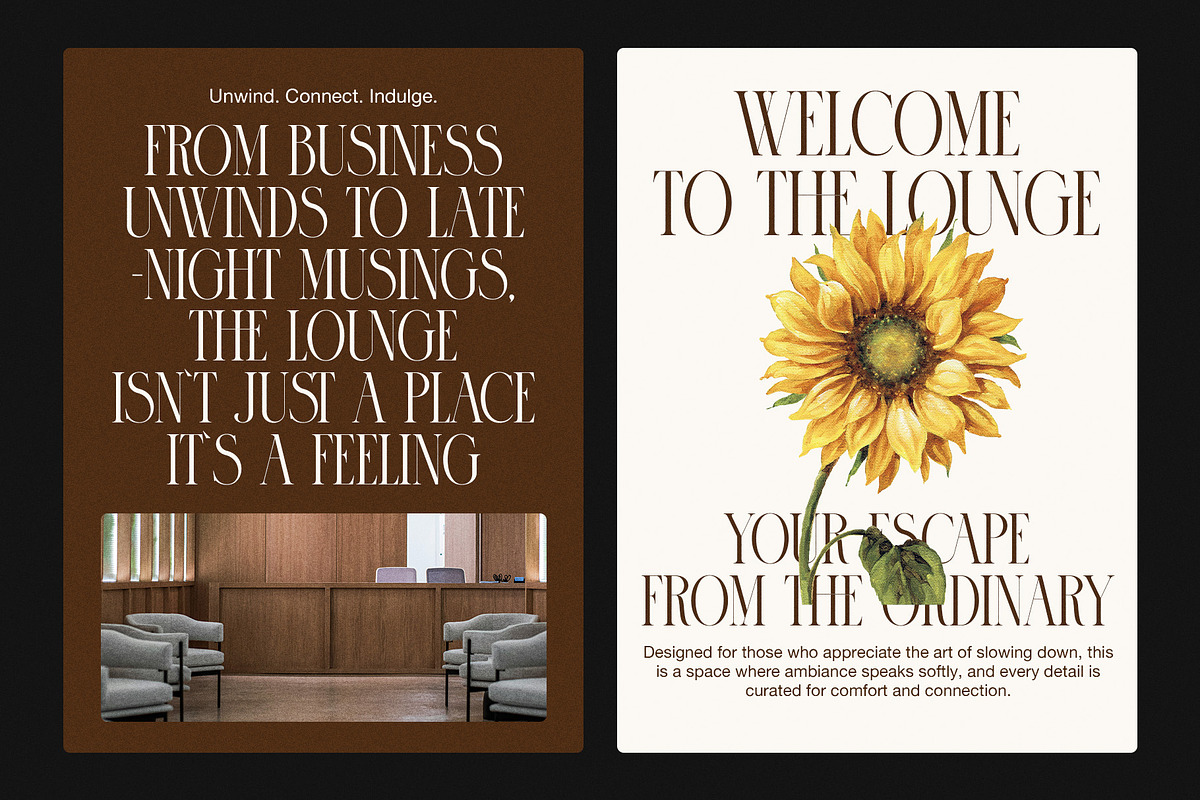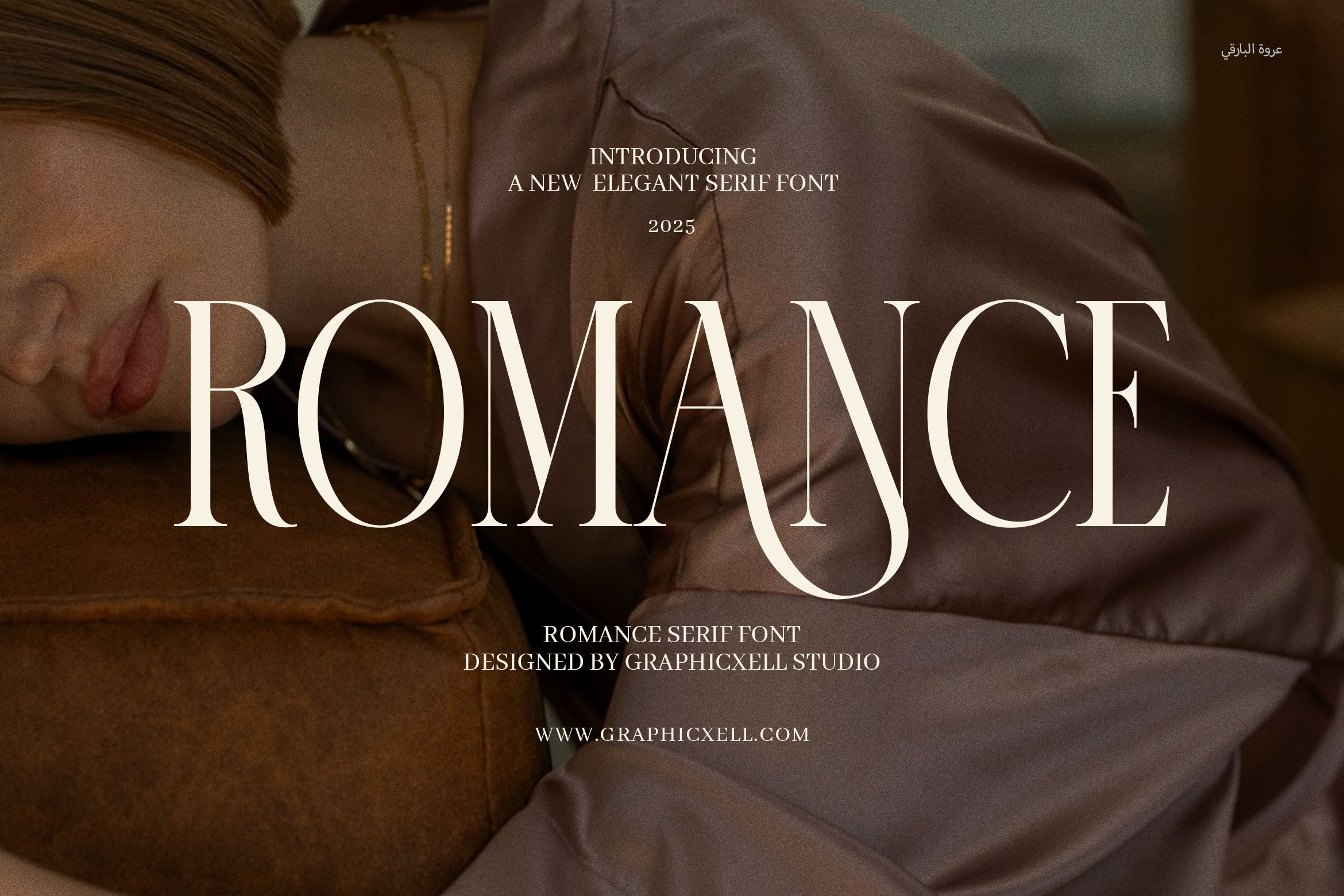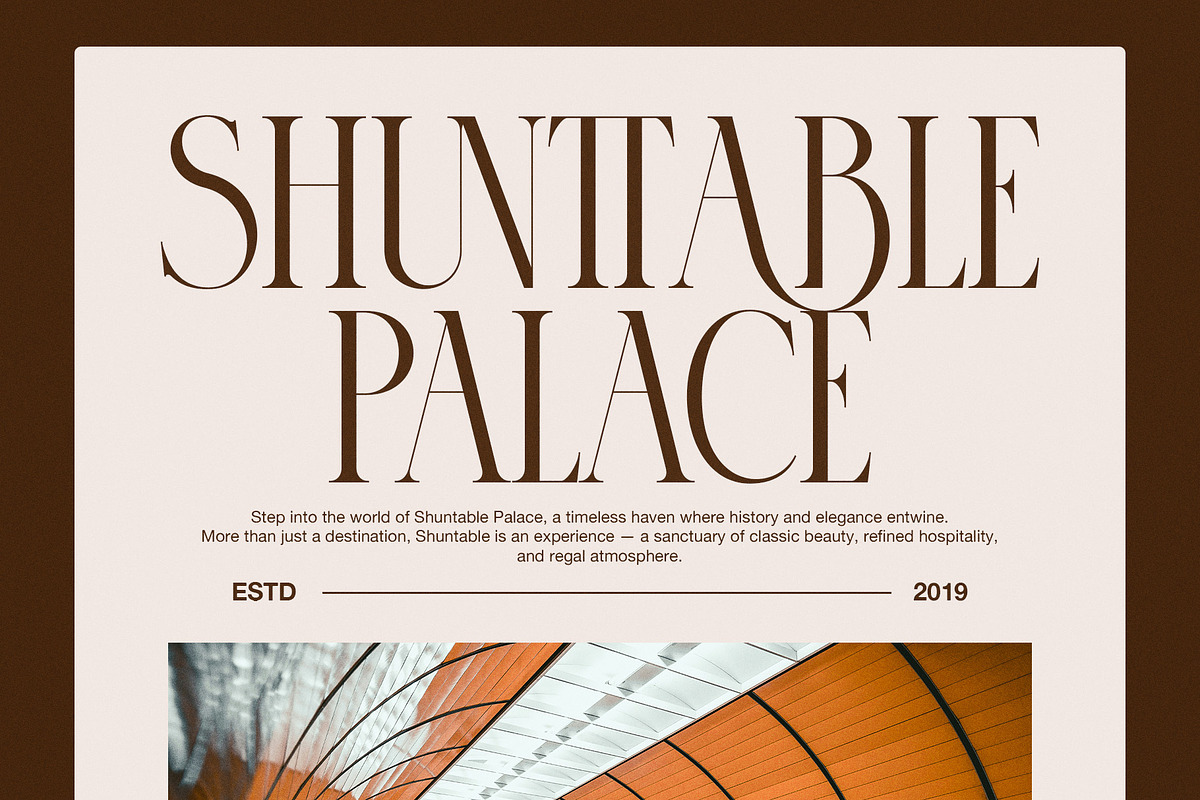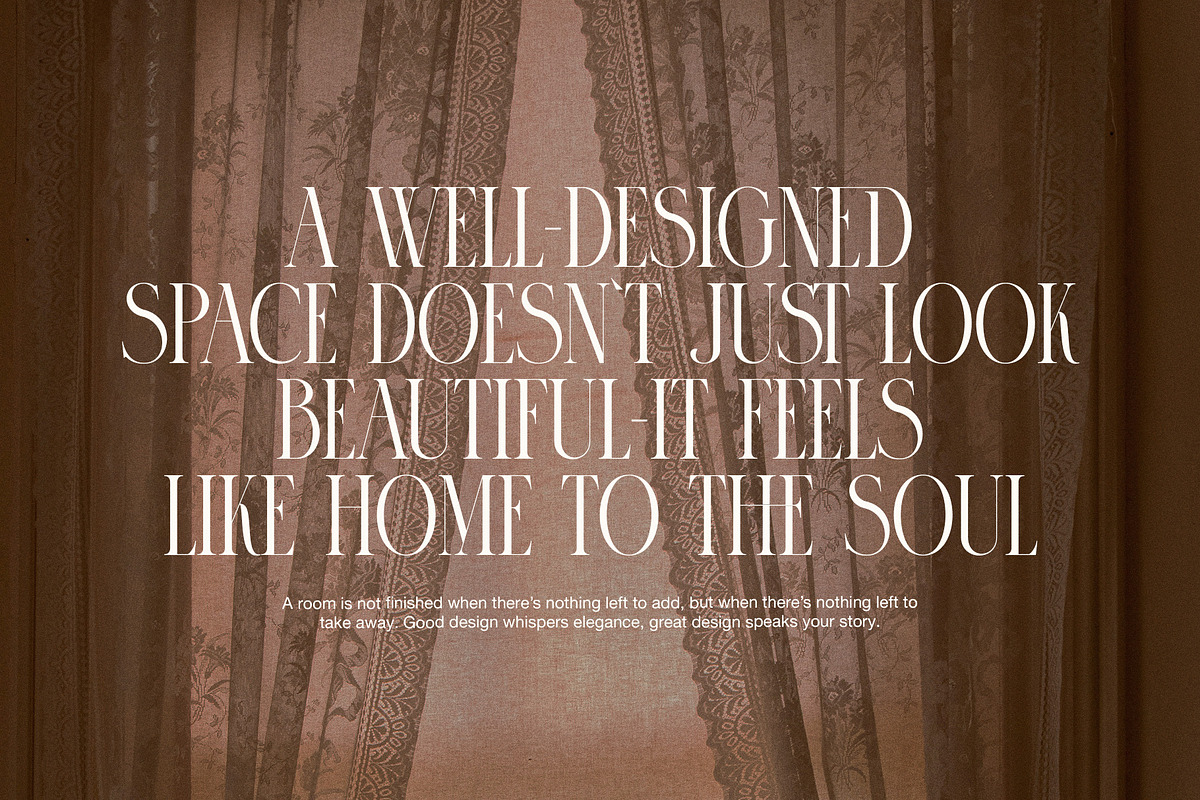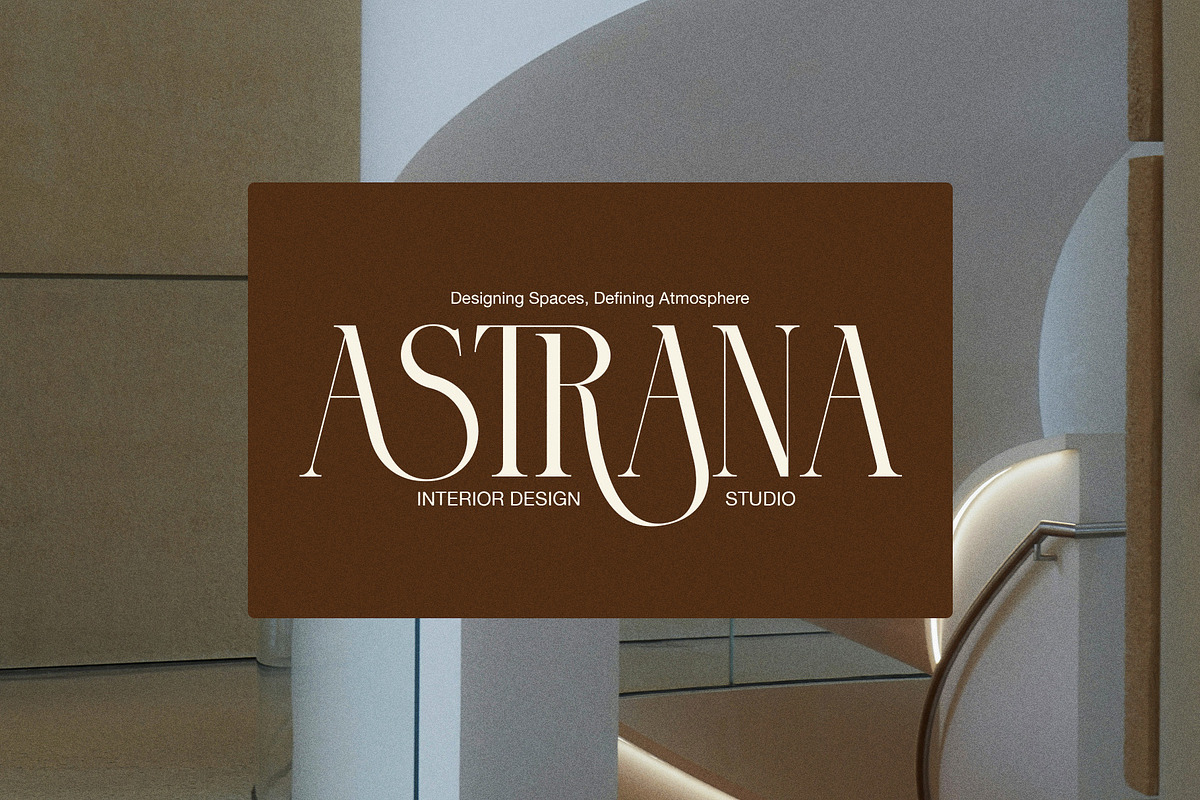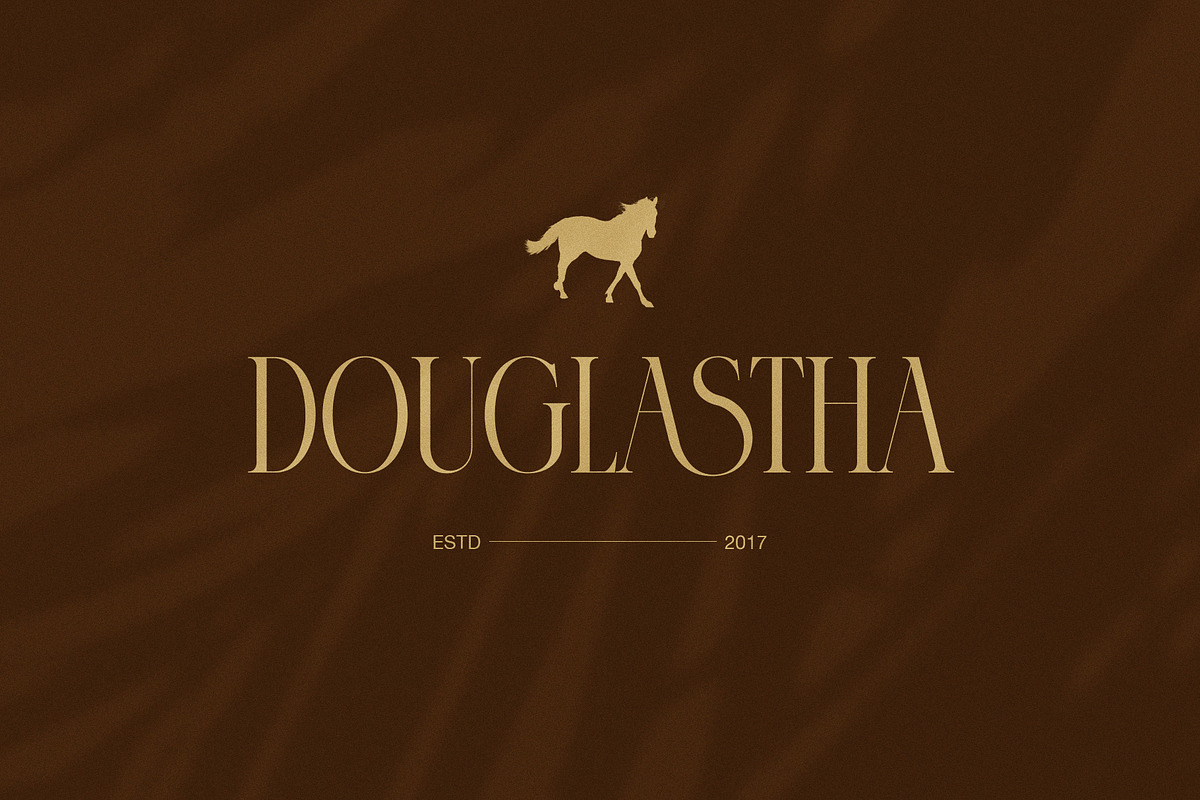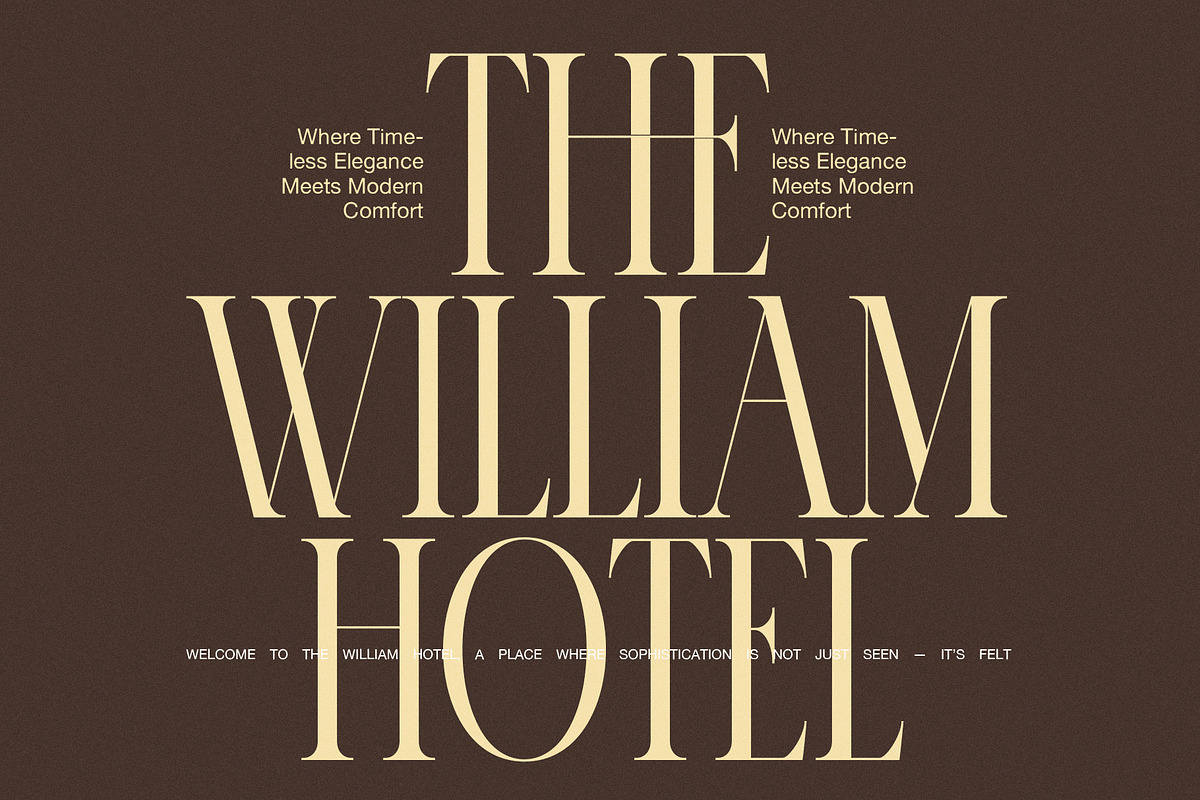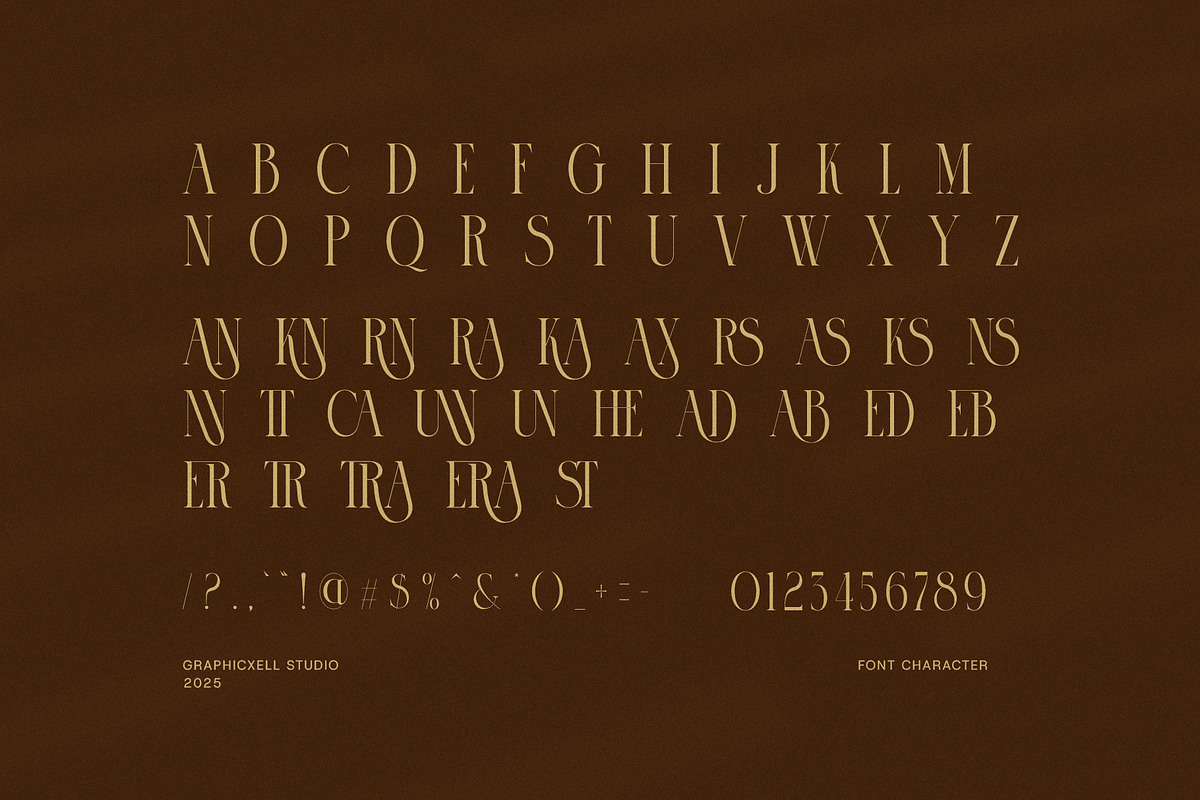
Romance Elegant Serif Font
Romance Elegant Serif Font is a graceful and contemporary serif typeface that captures the essence of timeless beauty and modern sophistication. Designed to convey charm and refinement, Romance features delicately sculpted letterforms with elegant serifs, making it the perfect choice for projects that require a luxurious and polished touch.
This typeface was crafted with versatility in mind, making it ideal for a wide array of design applications. Whether you're working on logo design, brand identity, website headers, editorial layouts, packaging design, or promotional materials, Romance delivers stunning results. It’s particularly well-suited for fashion brands, lifestyle blogs, wedding invitations, boutique signage, and high-end product packaging.
Romance balances classic typographic structure with modern flair. Its smooth curves, refined proportions, and stylish serifs give it a romantic, sophisticated personality that stands out in both print and digital formats. From magazine covers to social media graphics, this font adds a level of elegance that’s subtle yet unforgettable.
Included in the Romance font package is a full set of uppercase and lowercase letters, punctuation, numerals, and multilingual characters—giving designers the flexibility to create cohesive and beautiful layouts with ease. Whether used in bold display text or delicate body copy, Romance retains its elegance and clarity.
What makes Romance Elegant Serif truly unique is its ability to convey emotion and style without being overpowering. It’s perfect for creative professionals who want a typeface that speaks of elegance, femininity, creativity, and premium quality. The font’s gentle strength allows it to shine in both minimalist and ornate designs.
Bring your next project to life with Romance Elegant Serif Font, and watch as it transforms your designs with a touch of class and sophistication. Whether you're launching a luxury brand, creating editorial content, or designing standout packaging, Romance provides the elegance and versatility you need to make a lasting impression.